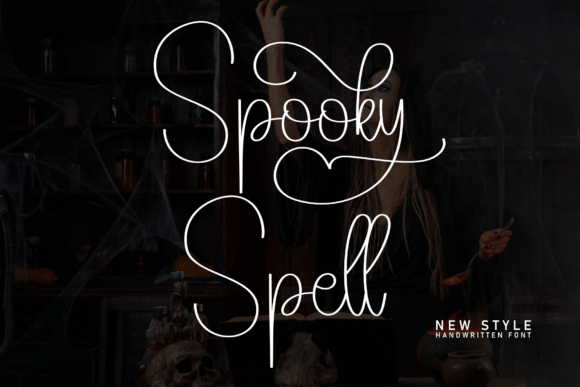
Enter the world of Spooky Spell Font, a charming and enchanting script font that will cast a spellbinding effect on your designs. With its playful and whimsical personality, Spooky Spell Font is the perfect choice for adding a touch of magic to your creative projects.
Step into a world of wonder and enchantment, where your words take on a life of their own. Spooky Spell Font is a whimsical and captivating script font, carefully crafted to bring a touch of magic to your designs. With its charming and playful personality, Spooky Spell Font is the perfect choice for creating eye-catching logos, enchanting invitations, heartfelt greetings cards, and more.
The beauty of Spooky Spell Font lies in its enchanting details and delightful nuances. Each letter dances across the page, as if written by the hand of a mischievous fairy. The flowing curves and playful flourishes add a sense of whimsy and wonder to your messages, making them irresistible to the eye.
Embrace the magic of Spooky Spell Font and embark on a creative journey like no other. Let your imagination run wild as you craft enchanting designs that captivate and inspire. Whether you're creating a whimsical greeting card, a captivating logo, or a heartfelt invitation, Spooky Spell Font will add a touch of enchantment that will leave a lasting impression.
Unlock the boundless possibilities of Spooky Spell Font and elevate your designs to new heights. Let its enchanting charm cast a spell on your audience and create a captivating experience that they won't soon forget. Indulge in the magic of Spooky Spell Font and let your creativity soar!